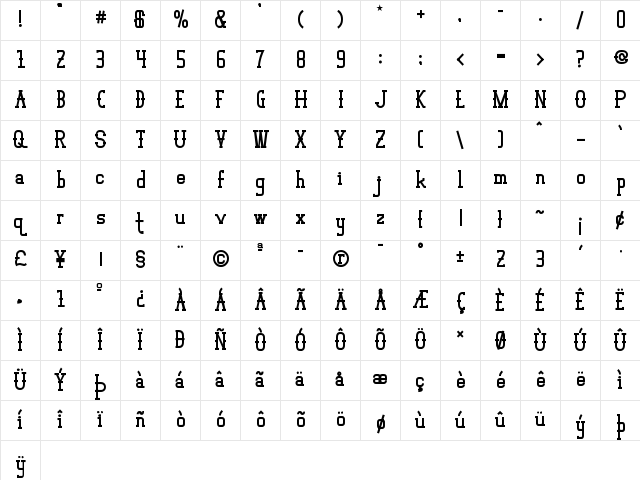
Vloderstone Black Regular
Design Context for Vloderstone Black Typeface
Vloderstone Black offers clean, dependable letterforms without strong stylistic allegiance, making it a practical choice for designers who need flexibility.